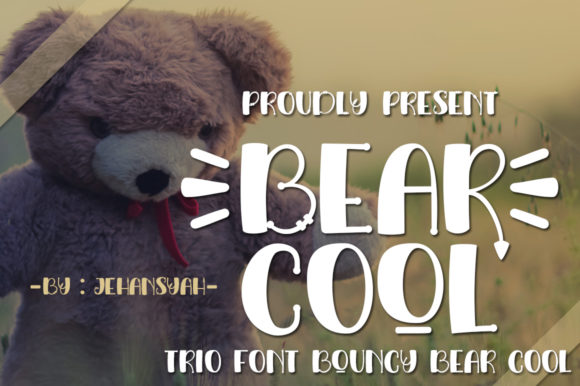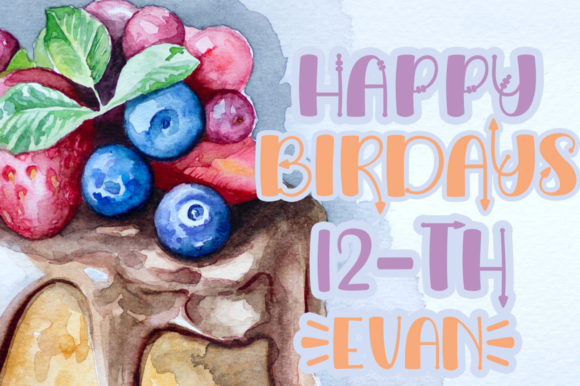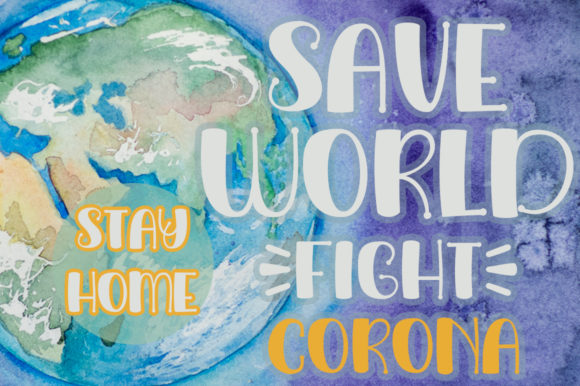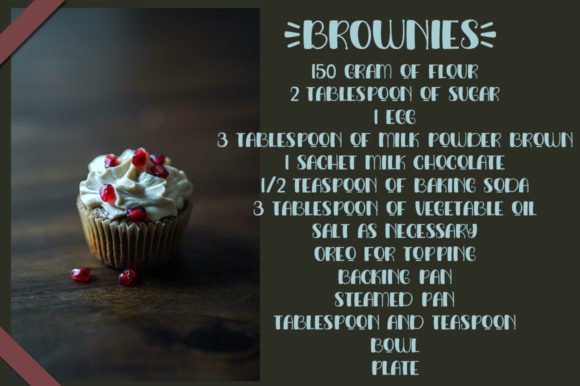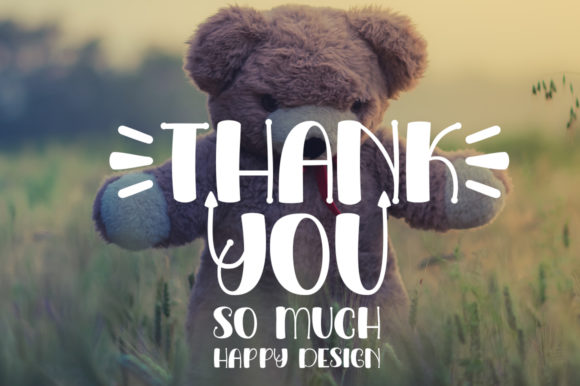
Bear Cool Font
About Bear Cool Font
Bear Cool is a cute and casual display font with an incredibly friendly feel. Whether you’re looking for fonts for Instagram or calligraphy scripts for DIY projects, this font will turn any creative idea into a true piece of art!